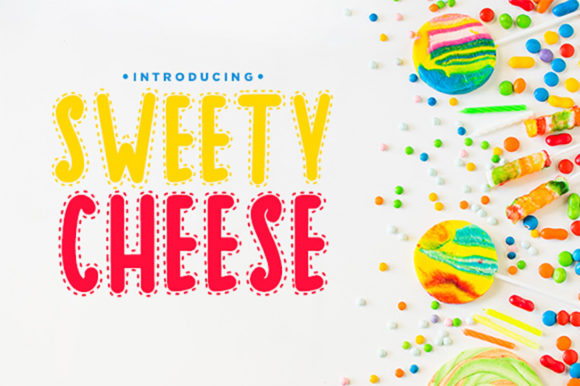
Lose yourself in the sugary-sweet delights of Sweety Cheese, a handwritten font that is crafted to sprinkle your designs with joy and uniqueness! Born from the creative kitchen of DCLL Studio, this display font delights the eyes with its subtly playful and charmingly informal appearance, making it the perfect ingredient for a variety of digital and printed projects.
With Sweety Cheese, bid farewell to monotonous and predictable fonts, and embrace the power of expression. Its sweet and bubbly silhouette adds a dash of fun and excitement to any text, inviting your reader to dive into a world of imagination and delightful discovery. Whether you're a blogger seeking to add a touch of whimsy to your posts, a designer looking to leave a lasting impression on your clients, or simply a creative soul yearning for a pinch of sweetness in your life, Sweety Cheese is the font that will take your creations to new heights of charm.
Let your words dance with the cheerful rhythm of Sweety Cheese, blending seamlessly into a symphony of visual delight. Its fluid form and captivating curves lend an air of grace and elegance to any project, ensuring that your message shines with an unforgettable twinkle. Unleash the playful potential within your designs and embark on a creative adventure with Sweety Cheese, the font that will turn your digital dreams into sweet realities.